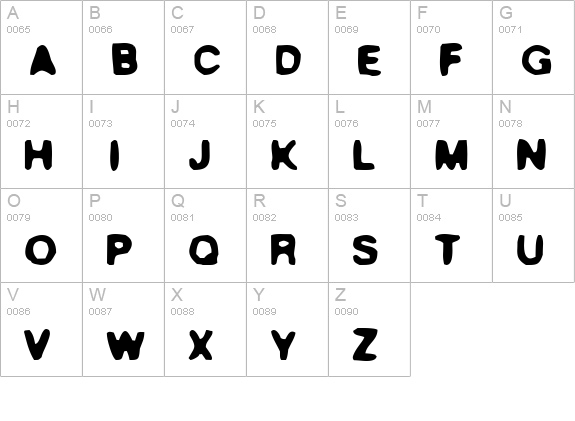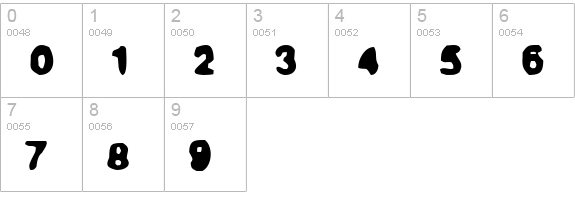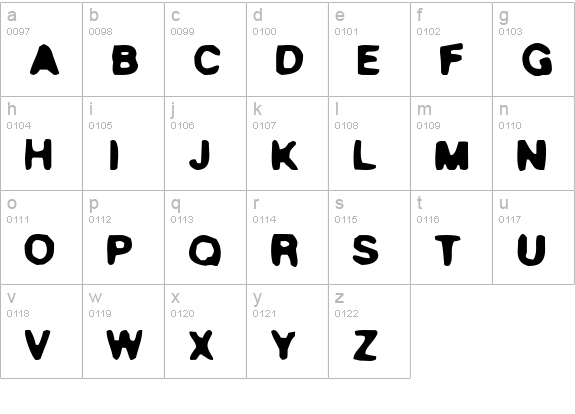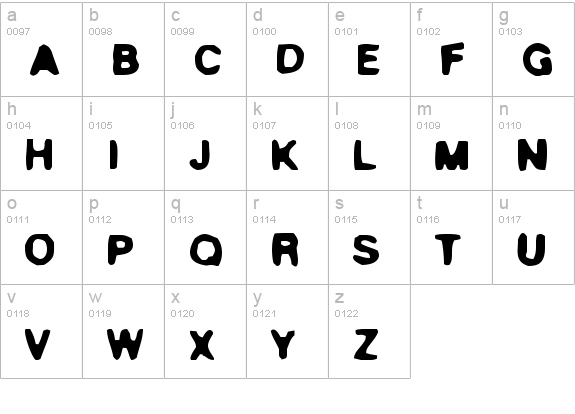
True Stories Font Details
Introducing True Stories, a whimsical and captivating font that effortlessly brings your words to life. With its playful curves and charming details, this font is perfect for adding a touch of magic to any project. Whether you're designing a poster, creating a logo, or crafting a unique invitation, True Stories is sure to make a lasting impression. True Stories is not only visually stunning, but it also offers an incredible value - it's free! That's right, this extraordinary font can be freely downloaded at FontsMarket.com, allowing you to unleash your creativity without breaking the bank. Don't let the price fool you, though. True Stories is top-quality and meticulously crafted, ensuring that every character is flawlessly designed. Featuring a wide range of characters, including uppercase and lowercase letters, numbers, punctuation marks, and special symbols, True Stories provides endless possibilities for your designs. Its versatility allows you to use it in various contexts, from elegant and sophisticated to playful and fun. The well-balanced letterforms and smooth lines make it legible even at smaller sizes, while still maintaining its unique and eye-catching appeal. True Stories doesn't just stop at its striking appearance. It also offers ease of use, making it accessible to designers of all skill levels. Its user-friendly nature ensures a seamless experience when working with this font, allowing you to focus on your creative process without any hindrances. So why wait? Download True Stories from FontsMarket.com today and let your imagination run wild. Whether you're a professional designer or a creative enthusiast, this font is sure to become your go-to choice for adding a touch of authenticity and charm to your projects. Join the countless satisfied users who have discovered the beauty and versatility of True Stories font. Get ready to embark on a typographic journey like no other, and watch your designs come to life with this extraordinary free font.